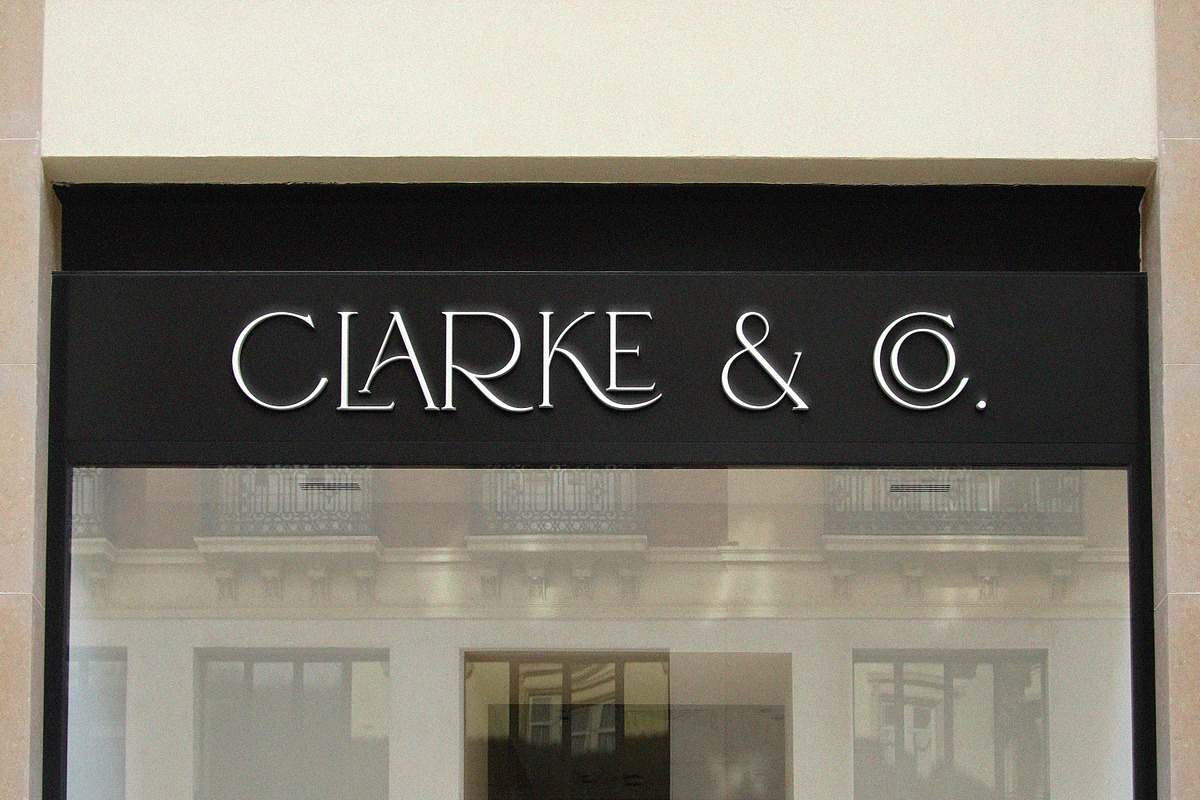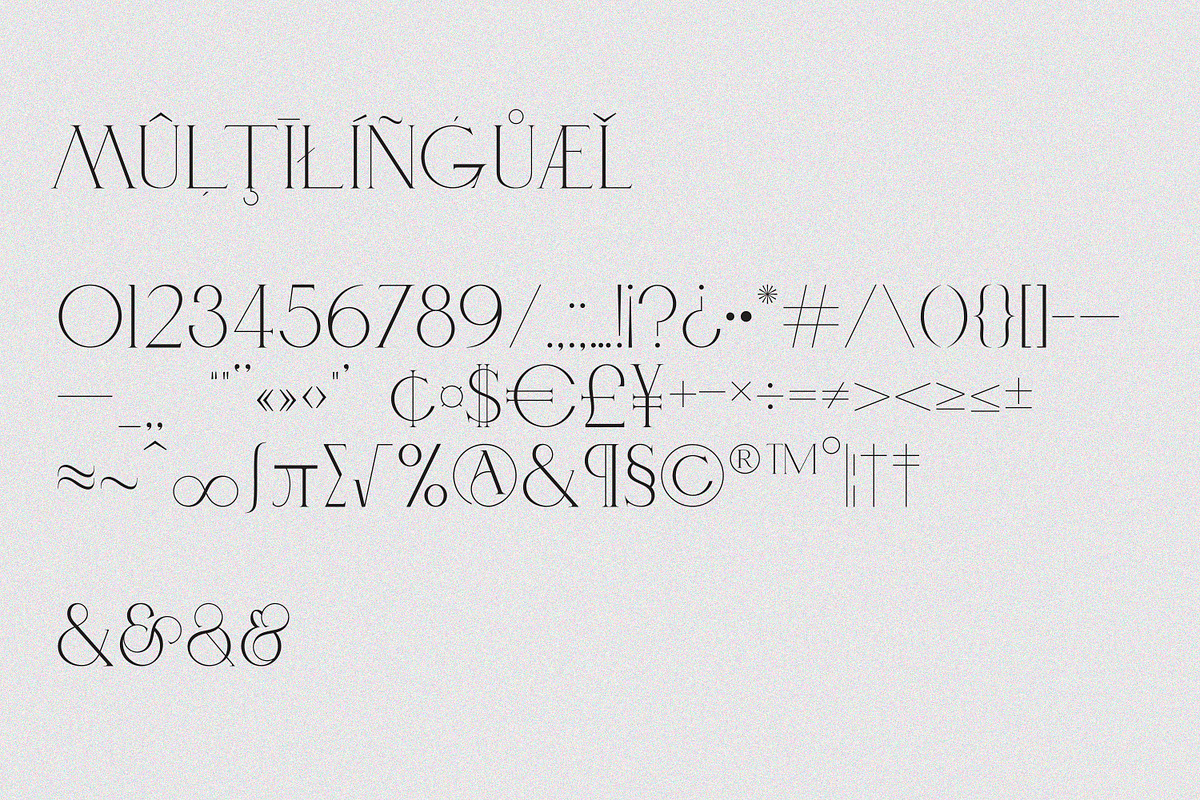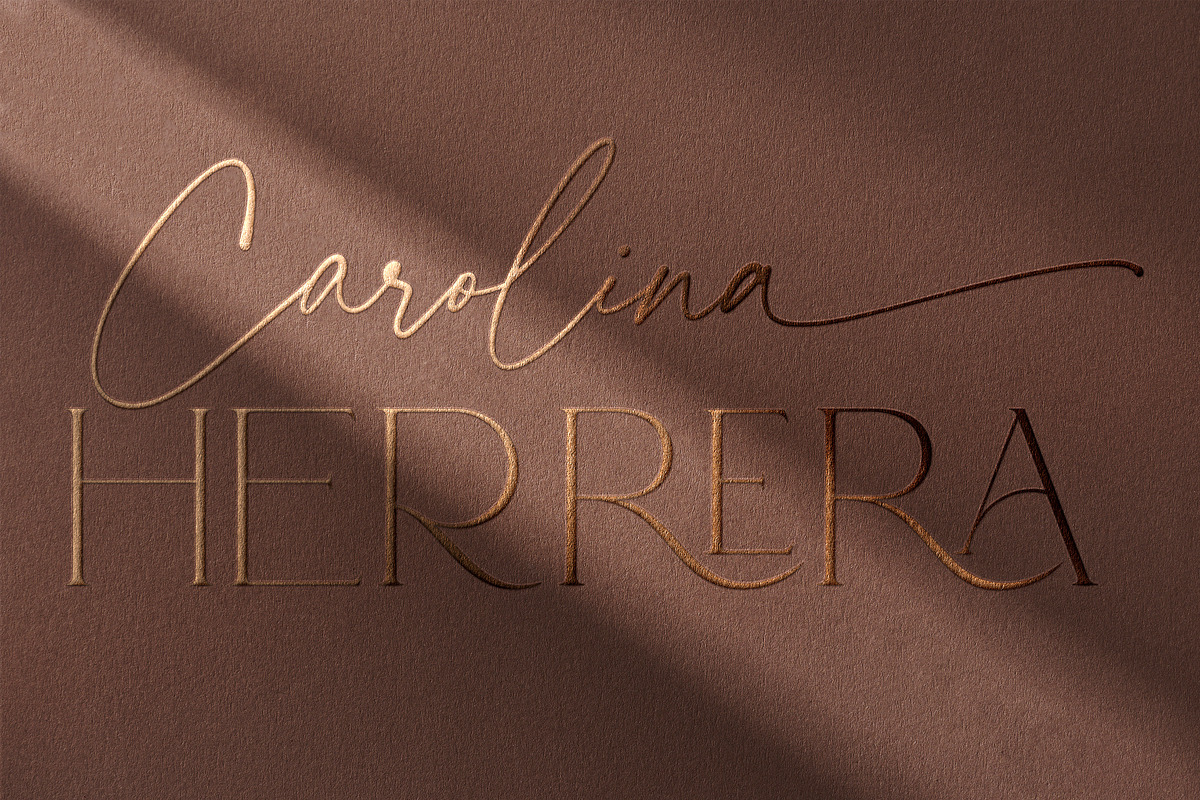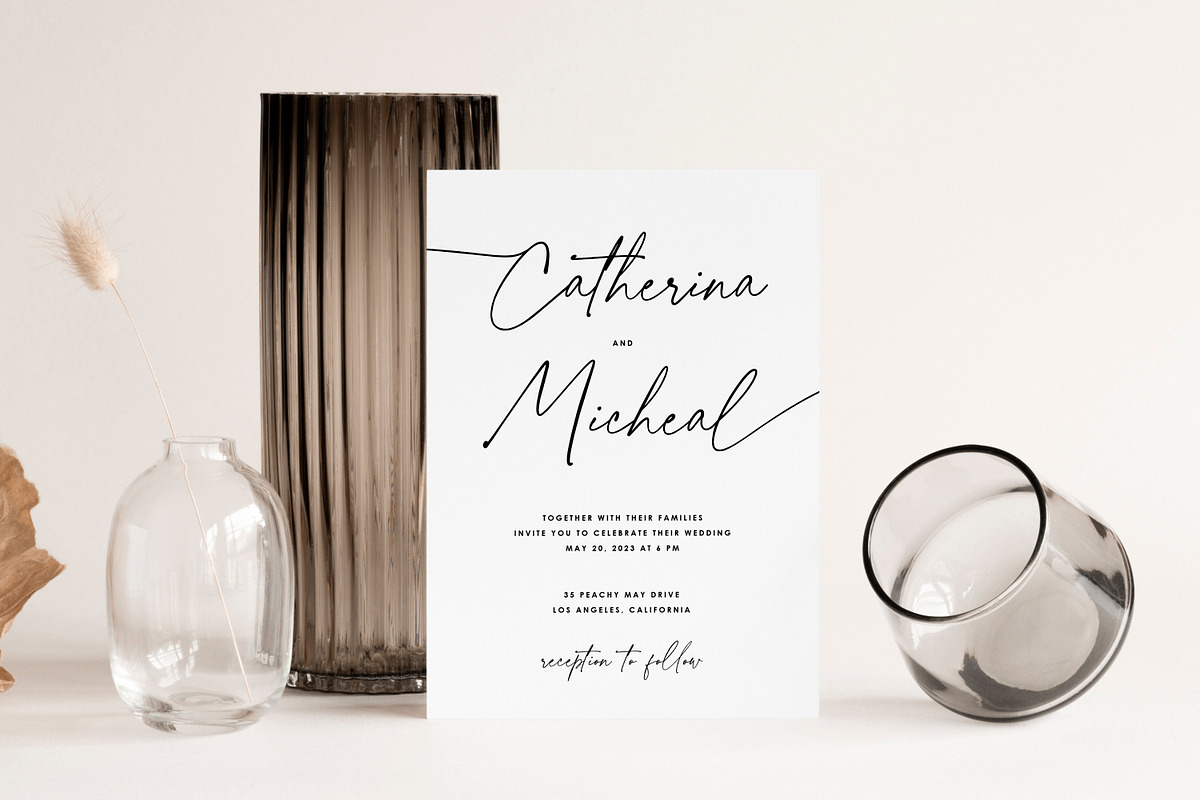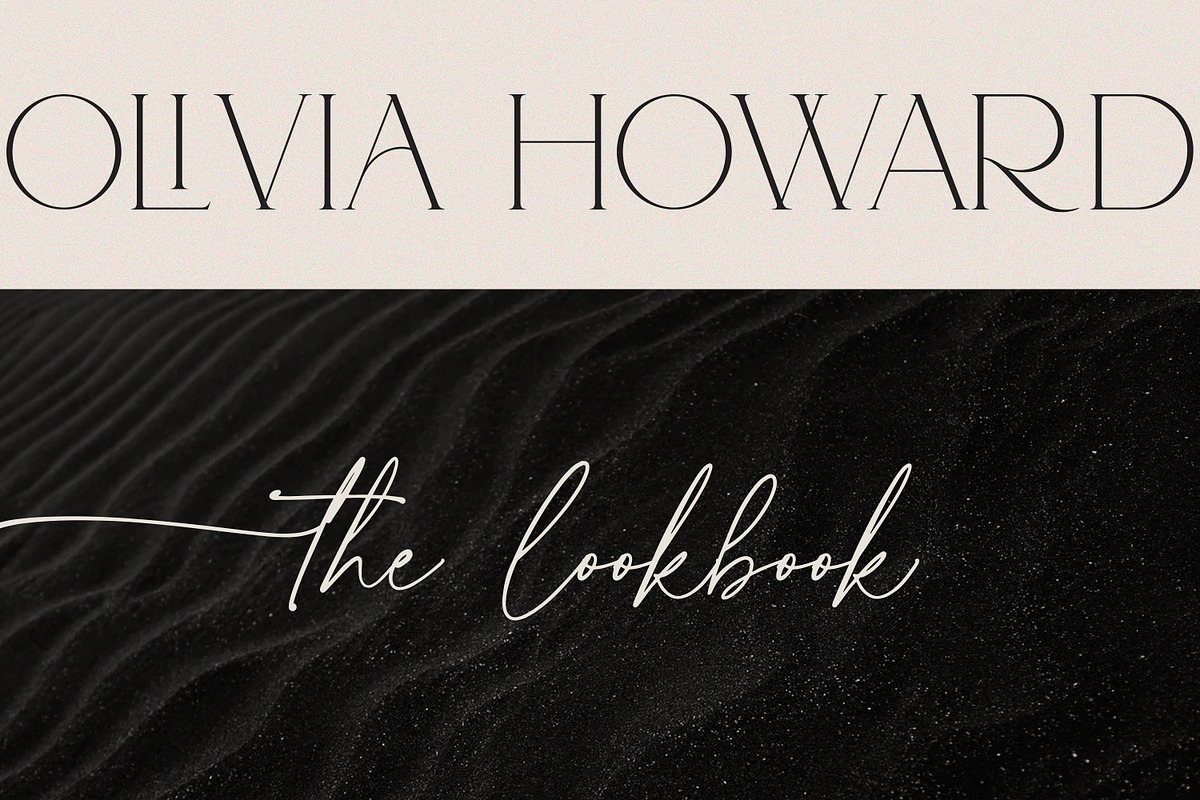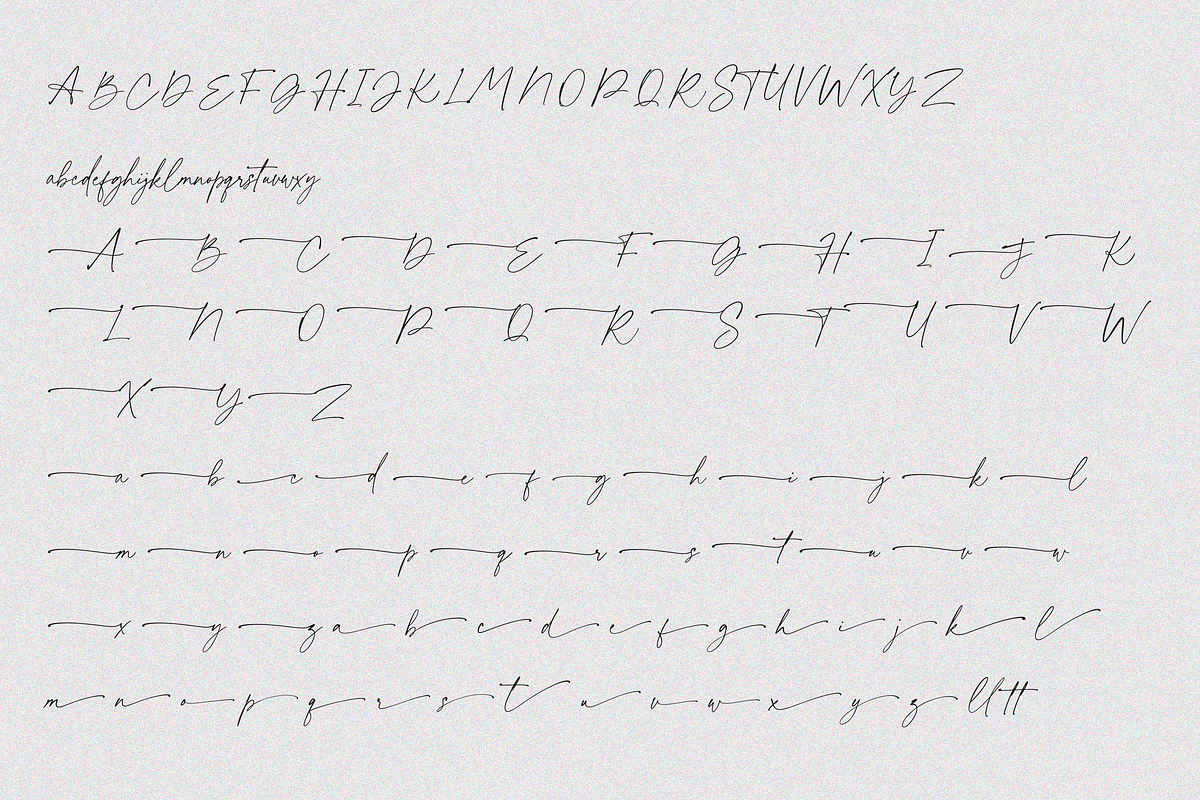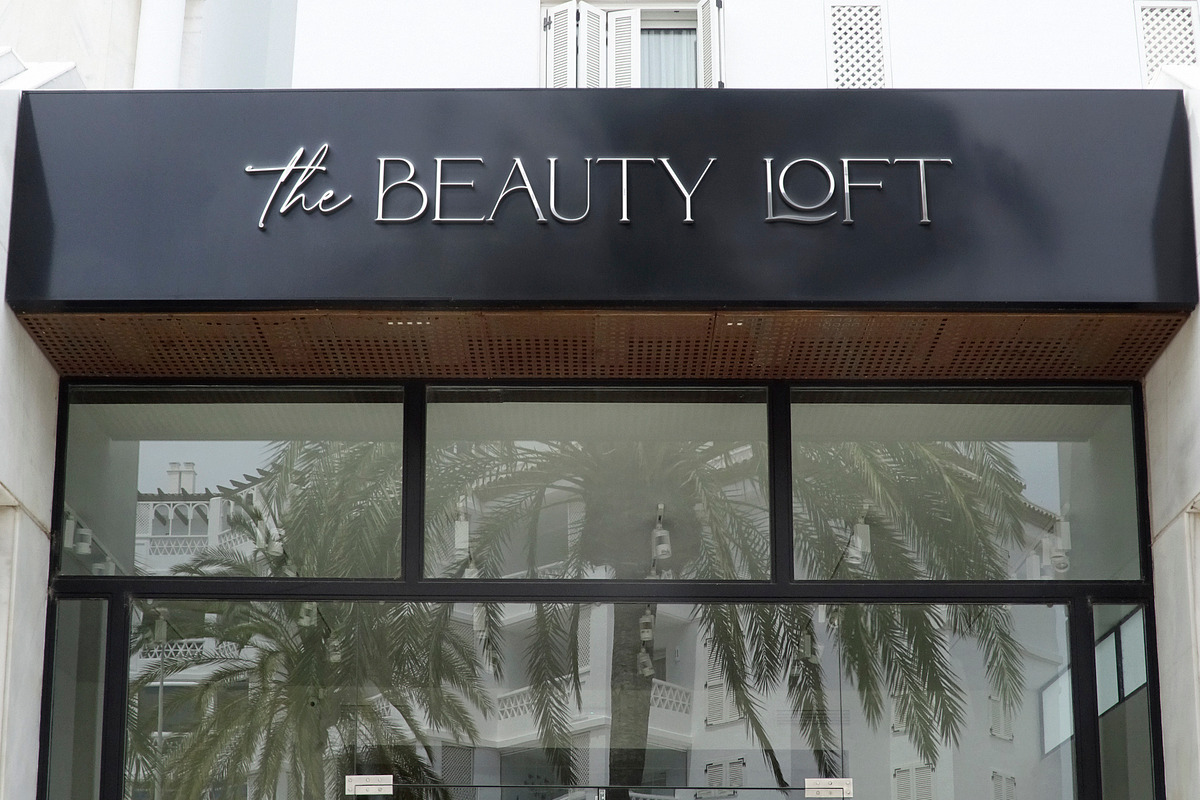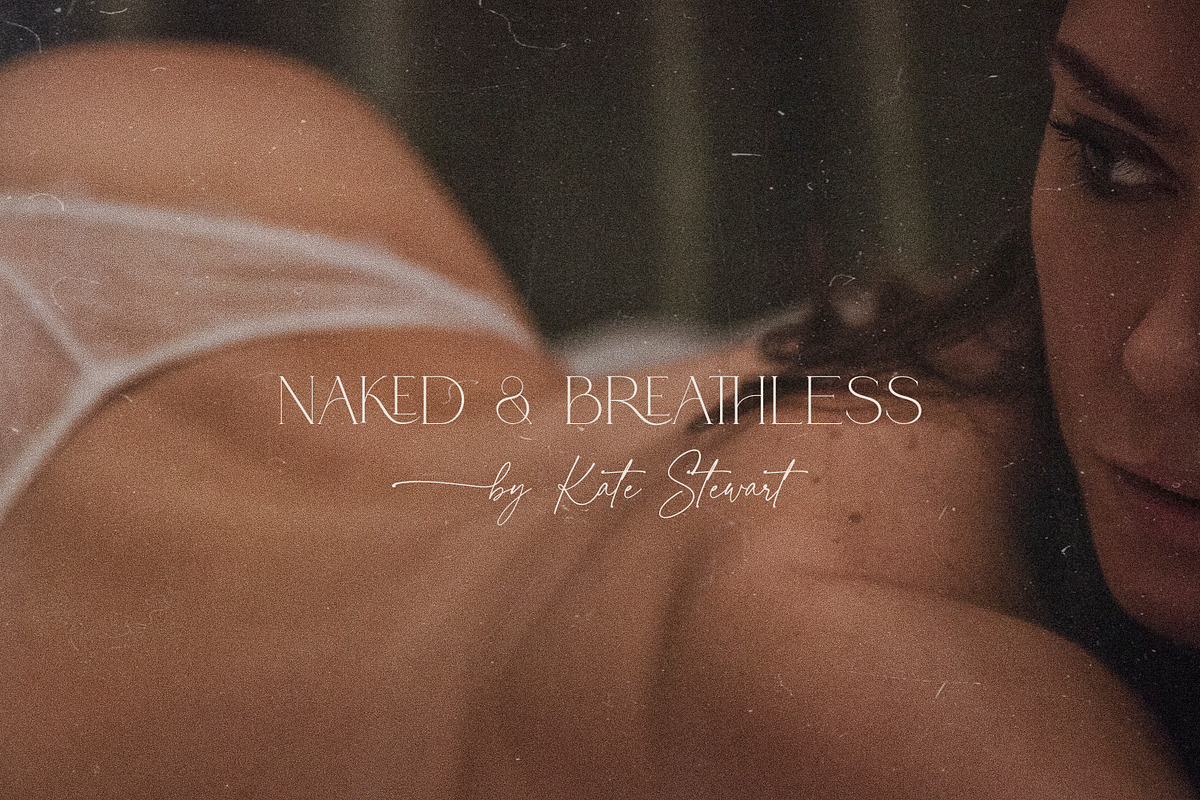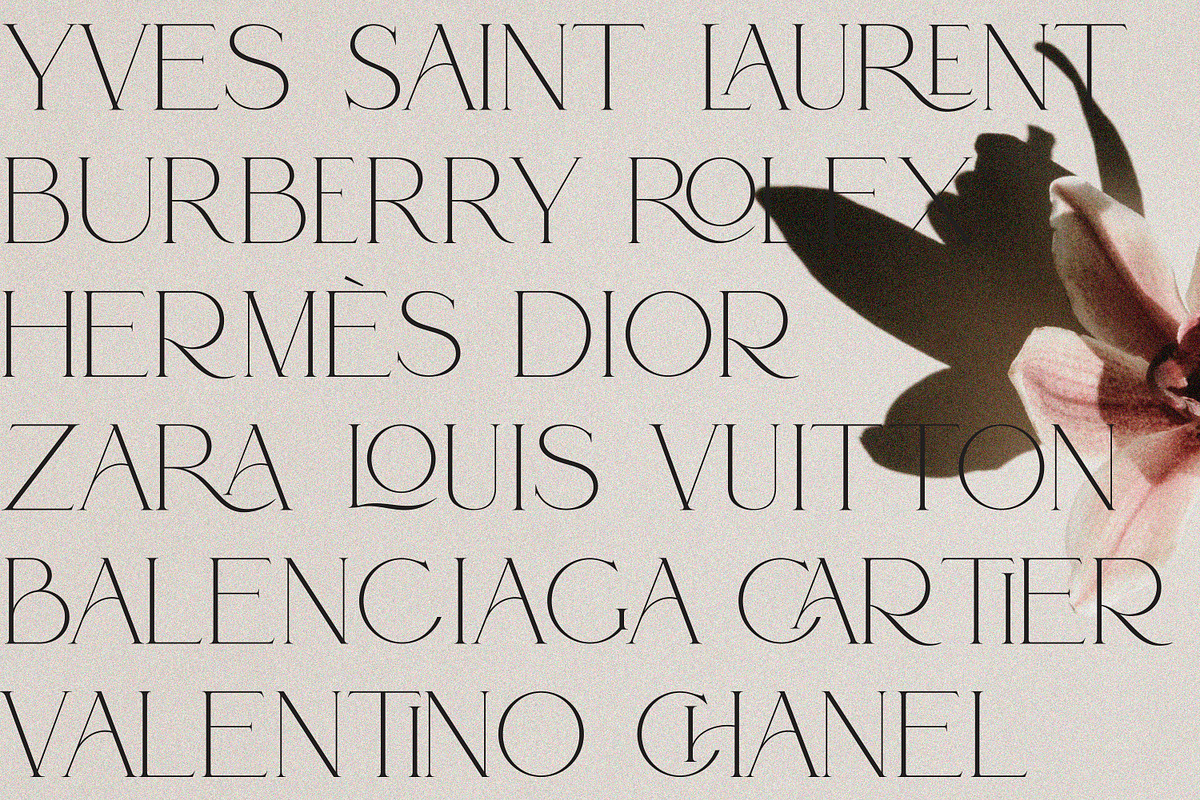
Adorn Story // CLASSY FONT DUO
1) Adorn Story Serif
the letters K, R, L were added as separate glyphs. Please, note that these three glyphs may not match well with other letters. Actually, they were not intended to be used with other letters. Initially, they were part of ligatures. We decided to include them separately only due to some customer requirements.
2) Adorn Story Script
included six ampersands;
Meet our new ah-mazing font duo-Adorn Story💖💖💖You would fell in love, if you are looking for a beautiful, refined serif paired with a voguish script. Serif font is rich with 60 ligatures, script font has beginning uppercase, beginning and ending lowercase swashes. What you get: